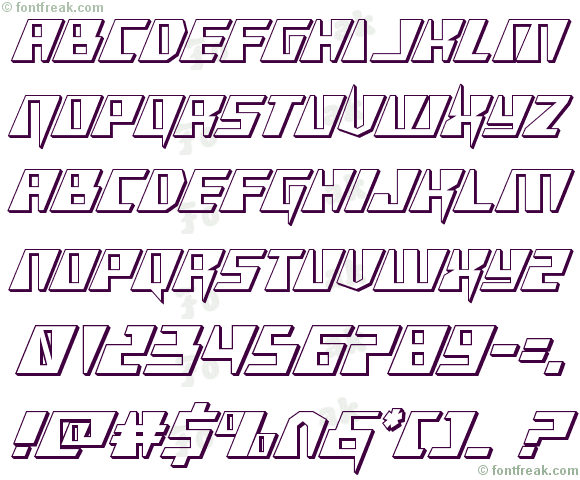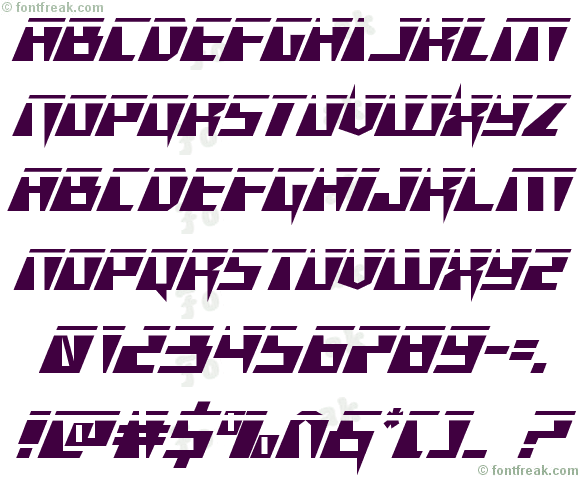
X-Racer Condensed
X-Racer Condensed is a striking display font designed by Daniel Zadorozny, characterized by its bold, condensed letterforms that exude a sense of speed and modernity. This sans-serif typeface features a unique blend of sharp angles and smooth curves, creating a dynamic visual appeal. The stroke weight is consistent, enhancing legibility while maintaining an energetic aesthetic. The absence of excessive decorative elements allows for a clean, streamlined look, making it suitable for various design applications.
Ideal for a range of creative projects, X-Racer Condensed excels in environments that require high impact and visibility. Its distinctive style is particularly effective for sports branding, promotional materials, and automotive-themed designs. Graphic designers might find it perfect for creating eye-catching posters for racing events or product launches. Small business owners can leverage this font for signage and branding, while content creators might choose it for dynamic presentations or social media graphics. The font's versatility allows it to adapt seamlessly to both online and print formats, making it a valuable asset in any designer's toolkit.
Targeting graphic designers, small business owners, and content creators, X-Racer Condensed font free download offers an exciting option for those looking to infuse their projects with a sense of motion and energy. The modern design makes it an excellent choice for attracting attention and conveying a message of innovation and speed.
What sets X-Racer Condensed apart is its ability to capture the essence of fast-paced environments while remaining versatile enough for various design needs. Its bold presence and unique characteristics ensure that any project using this font will stand out, making it a must-have for anyone looking to make a statement in their designs.